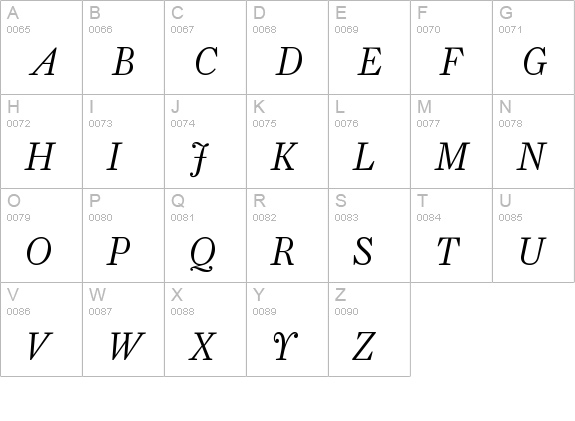
FarnhamDisplay-LightItal is a stunning display font that exudes elegance and sophistication. Its delicate and flowing italic design adds a touch of grace to any project it is used in. The slender letterforms and subtle curves create a sense of refinement and style that is perfect for luxury branding, editorial design, and more. Best of all, FarnhamDisplay-LightItal is available for free download at FontsMarket.com. This means you can add this beautiful typeface to your collection without any cost, making it a valuable asset for your creative projects. Don't miss out on the opportunity to enhance your designs with this exquisite font that is both versatile and visually appealing. Download FarnhamDisplay-LightItal today and elevate your typography game to new heights.